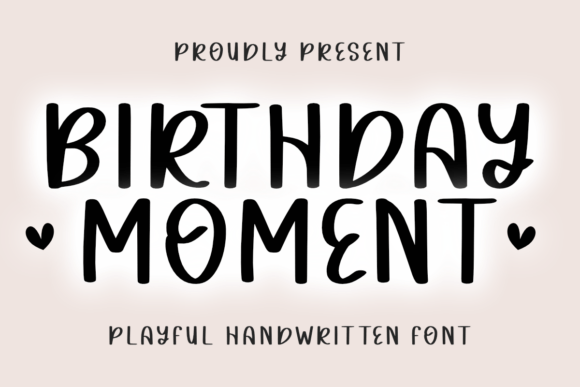
The Birth of a Perfect Font: A Birthday Moment Story
I’ll never forget the moment I stumbled upon the Birthday Moment Font. I was working on a custom party invitation for my niece’s birthday, and I was struggling to find the perfect font to match the playful and festive vibe of the design. As a designer and crafter, I know how crucial it is to find the right typography to bring your creations to life. And that’s when I discovered Birthday Moment – a cute and playful handwriting font that instantly captured the essence of celebration and joy.
• 🎉 Playful and Whimsical: Birthday Moment is perfect for creating fun and lively designs, from party invitations to social media graphics.
• ✅ Easily Readable: Despite its playful nature, the font remains clear and easy to read, even at smaller sizes.
• 💕 Versatile: It works beautifully for a wide range of projects, including planners, stickers, cards, quotes, and craft projects.
• 👍 Great for DIY and Cricut Crafts: The font’s handwriting style makes it an excellent choice for creative moms who love DIY projects, journaling, and Cricut crafts.
• ⚠️ Limited Formality: As a playful handwriting font, Birthday Moment might not be the best choice for more formal or professional designs.
• ⚠️ Glyph Limitations: While the font has a range of glyphs and alternates, it might not have every special character or symbol you need.
The Designer Inspiration Behind Birthday Moment
While the true story behind Birthday Moment’s creation might be unknown, it’s easy to imagine a designer who loves celebration and creativity crafting such a delightful font. Perhaps they wanted to create a typography style that would bring joy to DIY crafters and designers, making it easy to add a personal touch to any project.
Q: What type of projects is Birthday Moment best suited for?
A: Birthday Moment is perfect for playful and creative projects, such as party invitations, stickers, cards, planners, and craft projects.
Q: Does Birthday Moment have a wide range of glyphs and alternates?
A: Yes, Birthday Moment has a range of glyphs and stylistic alternates, making it versatile and fun to use.
Q: Can I use Birthday Moment with my Cricut machine?
A: Yes, Birthday Moment can be used with Cricut machines, making it perfect for DIY crafters and Cricut enthusiasts.